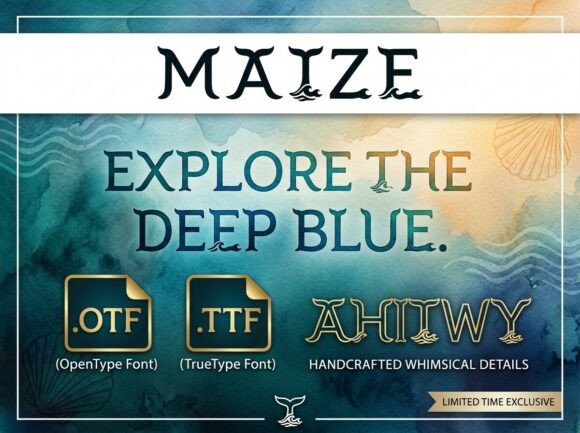
Introduction to Maize Font
Dive deep into a world of fluid elegance with Maize, a sophisticated display serif that captures a “majestic-and-maritime” soul.
This font features sharp, high-contrast serif letterforms uniquely characterized by rhythmic, hand-drawn whale tail motifs and crashing wave terminals that flow from the base of each character With its balanced structural weight and oceanic personality, Maize is the premier choice for independent marine conservation branding, luxury seafood restaurant logos, coastal editorial layouts, and high-impact “serene-and-sea-swept” social media headers.
Key Features of Maize Font
Why Choose Maize Font?